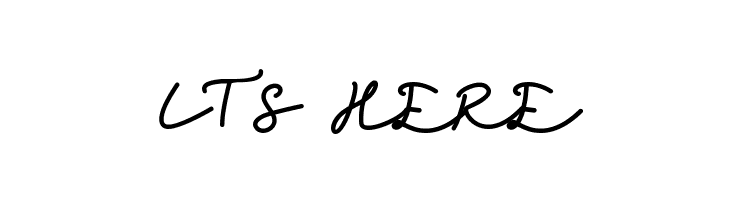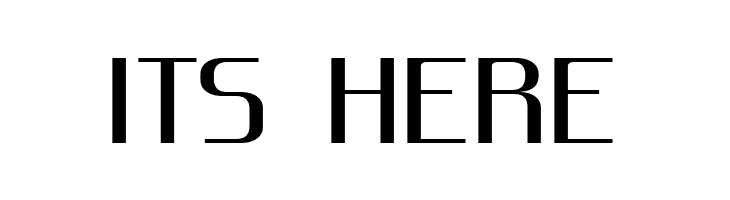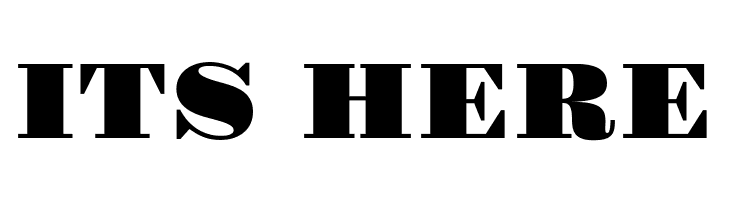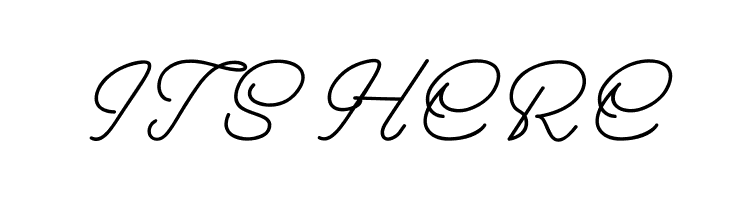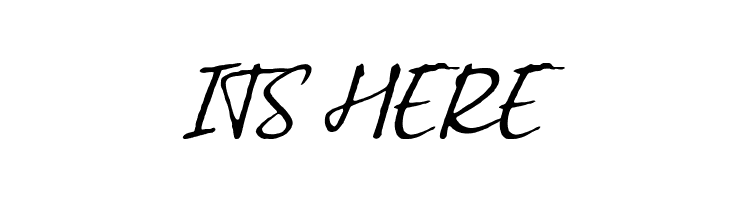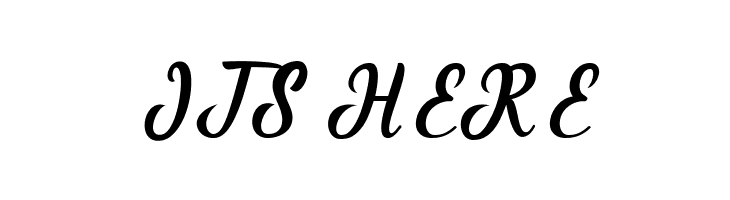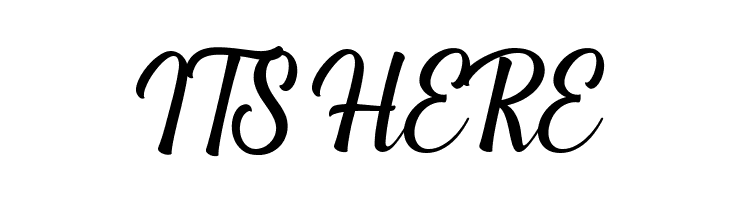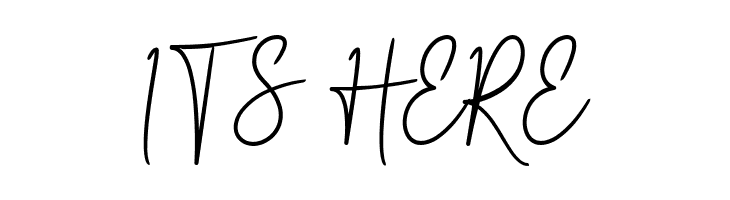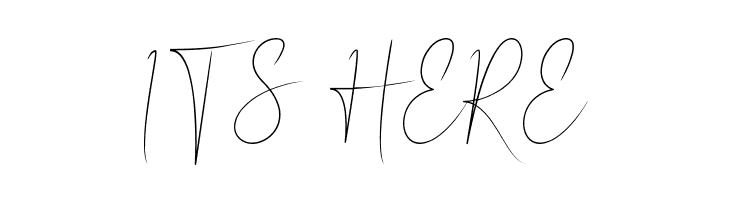
A classic serif typeface with high contrast and elegant serifs.
A lively, cursive script font with elegant connections and a natural handwriting feel.
A flowing, cursive script font with elegant loops and swashes.
A dynamic and fluid script font with elegant, flowing letterforms.
A graceful and elegant script font with flowing, connected strokes.
A lively and expressive script font with elegant swashes and interconnected letters.
A lively and expressive script font with elegant curves and dynamic flourishes.
A modern, geometric font with clean lines and a structured, professional appearance.
A graceful, cursive script font with a natural handwritten style.
A bold, expressive handwritten font with a playful and dynamic style.
A graffiti-inspired script font with bold, angular letters and a rebellious flair.
A graceful script font with flowing, interconnected cursive letters.
A dynamic, cursive script font with a fluid, handwritten style.
An elegant and flowing script font with smooth curves and connected letters.
A bold, medieval-inspired font with sharp serifs and dramatic strokes.
A bold, slab serif font with a strong and commanding presence.
A dynamic and energetic script font with a fluid, handwritten style.
A sophisticated script font with flowing, cursive letterforms.
A lively, cursive script font with smooth, connected strokes and medium contrast.
A playful, hand-drawn font with artistic flair and dynamic strokes.
An elegant script font with flowing, interconnected letters and high contrast strokes.
An elegant script font with fluid, cursive strokes and refined flourishes.
A charming, fluid cursive script with interconnected letters and playful elegance.
A playful and elegant script font with flowing, interconnected strokes.
A graceful script font with fluid, connected strokes and a natural handwriting style.
A modern, geometric sans-serif font with clean lines and balanced spacing.